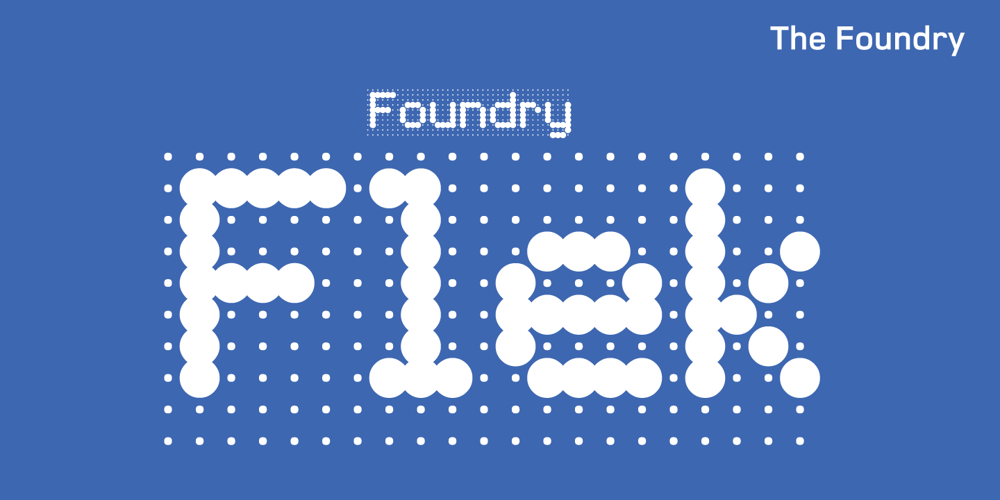
Foundry Flek Font Family was designed by published by The Foundry. Foundry Flek contains 5 styles and family package options. Foundry Flek and Foundry Plek are created on the same dot matrix grid system.Each family includes: light, regular, medium and bold weights – with a selection of dot patterns that can extend the grid vertically and horizontally. The underlying matrix common to each weight allows experimentation with overlays, and mixing weights produces varying effects. Foundry Plek used conventionally works well for serious correspondence, with a ‘typewriter font’ effect. Foundry Flek has an integral dot matrix grid as a background. With these two fonts a whole new graphic language can be explored.